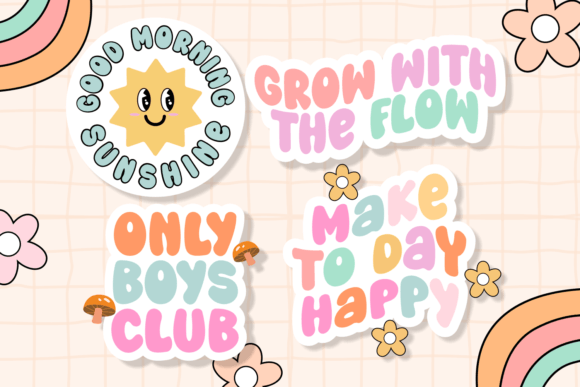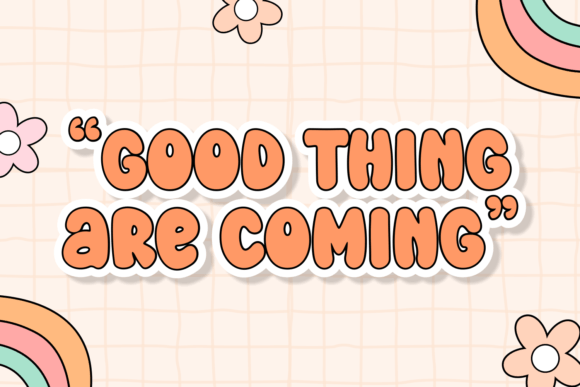
Really Boys Font
Really Boys is a playful and groovy font that exudes energy and fun. With its lively curves and vibrant character, this font adds a touch of retro charm to any design. Whether you’re creating invitations, posters, or social media graphics, Really Boys brings a sense of playfulness and joy to your text, making it perfect for projects that require a bit of youthful flair. Get ready to groove and let your creativity soar with the captivating charm of Really Boys!